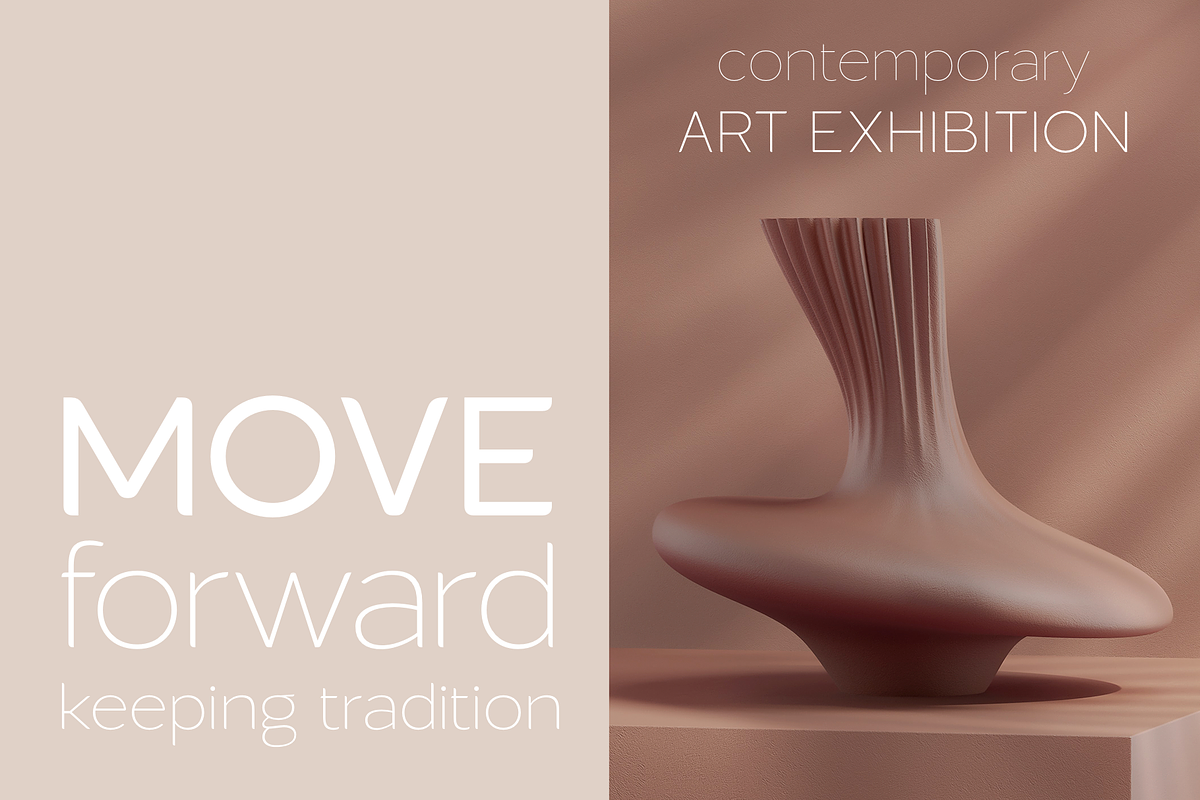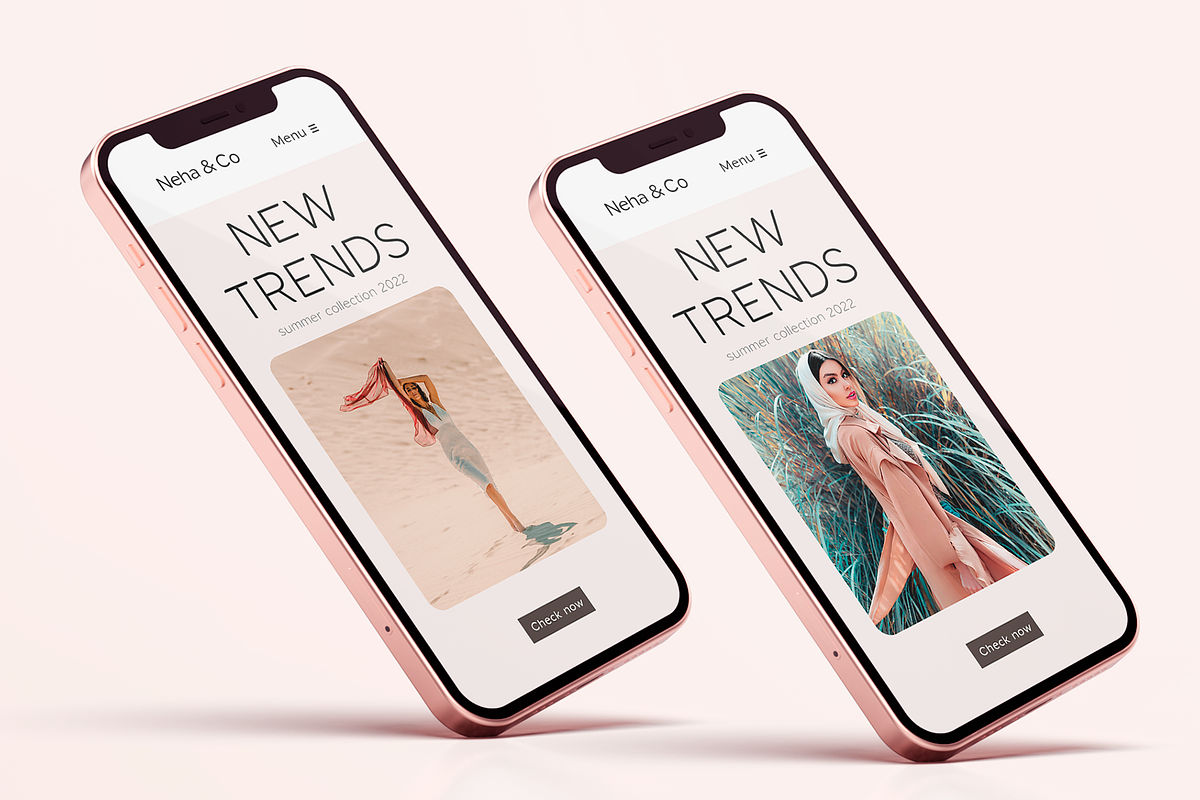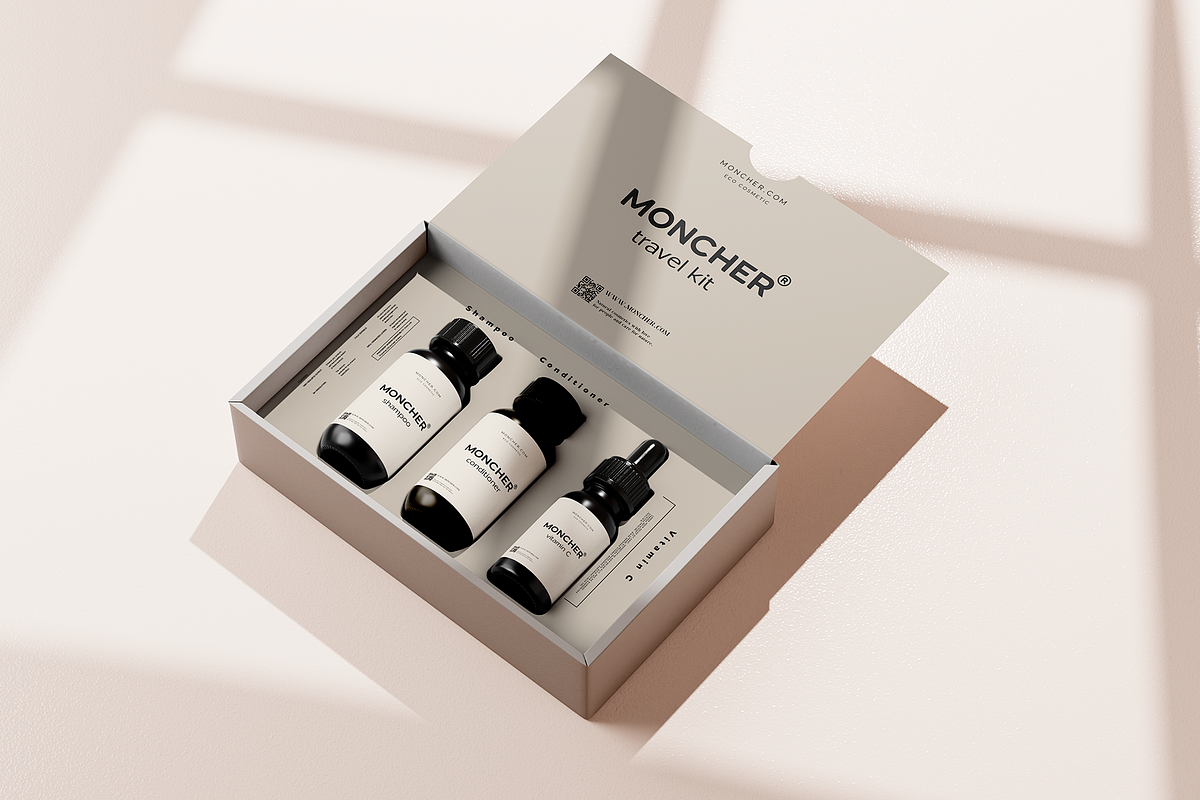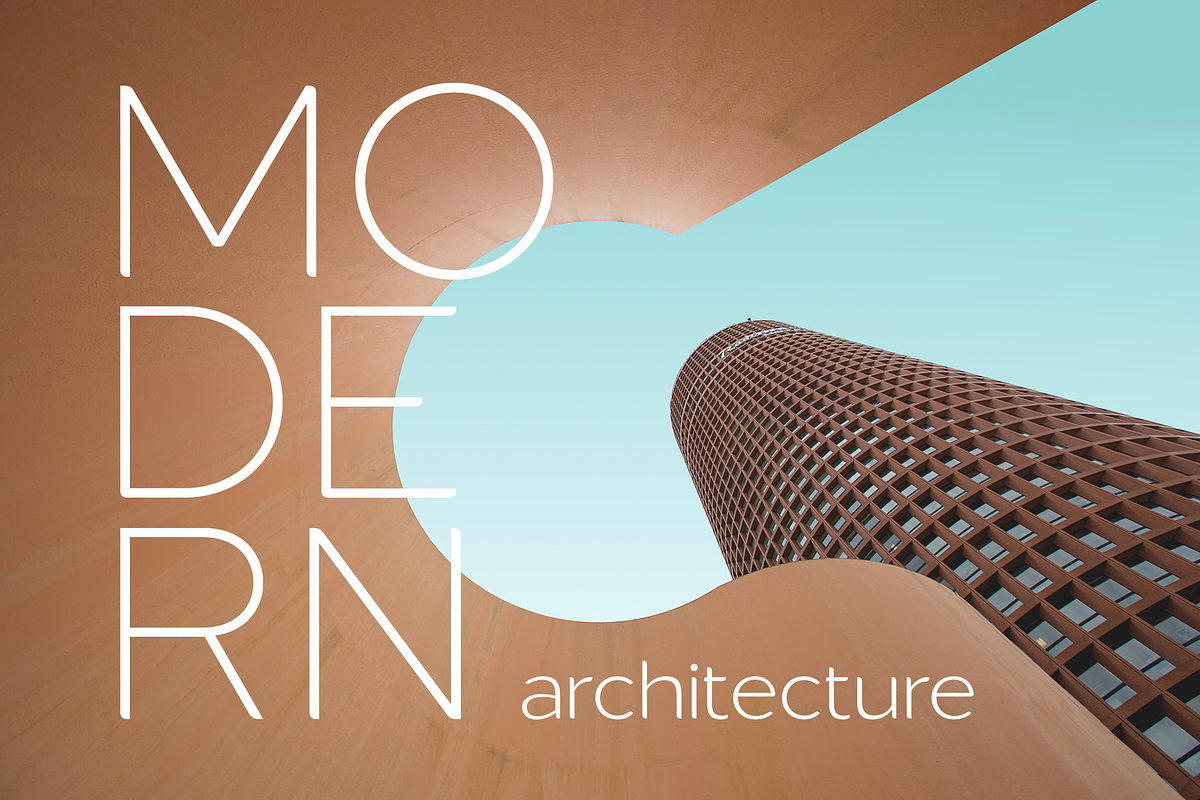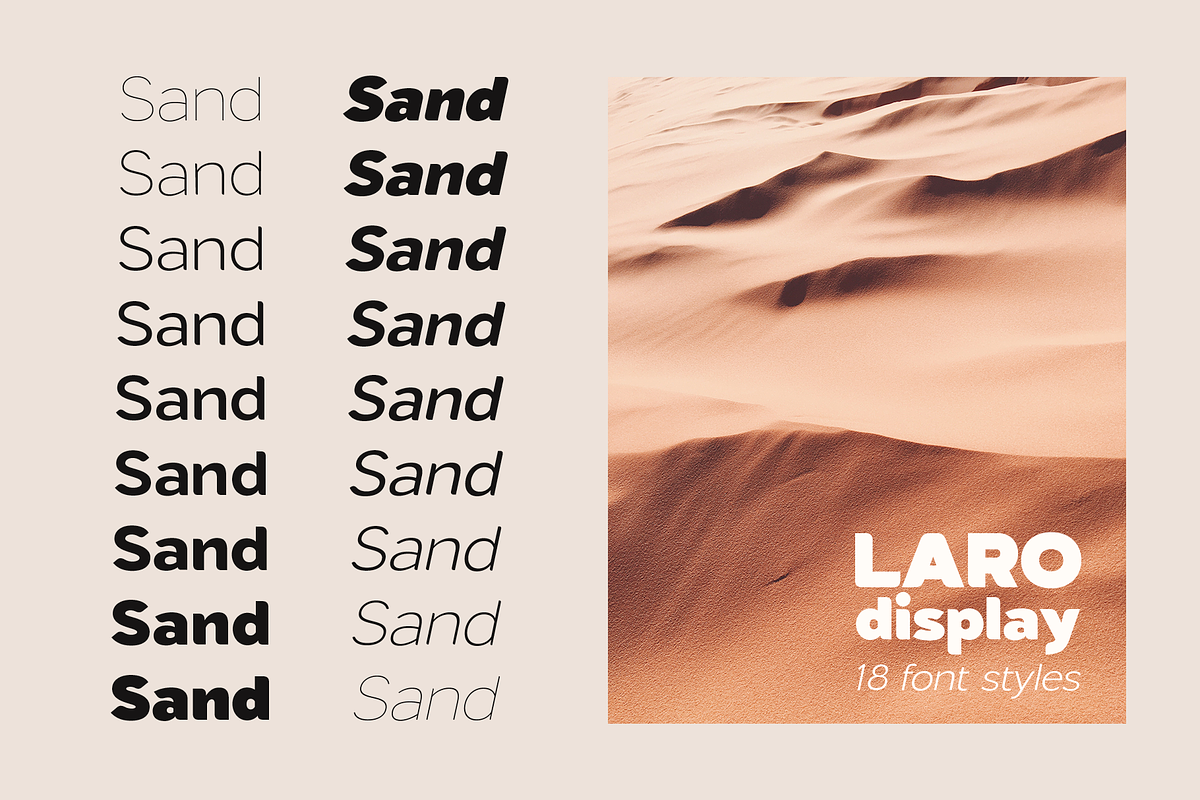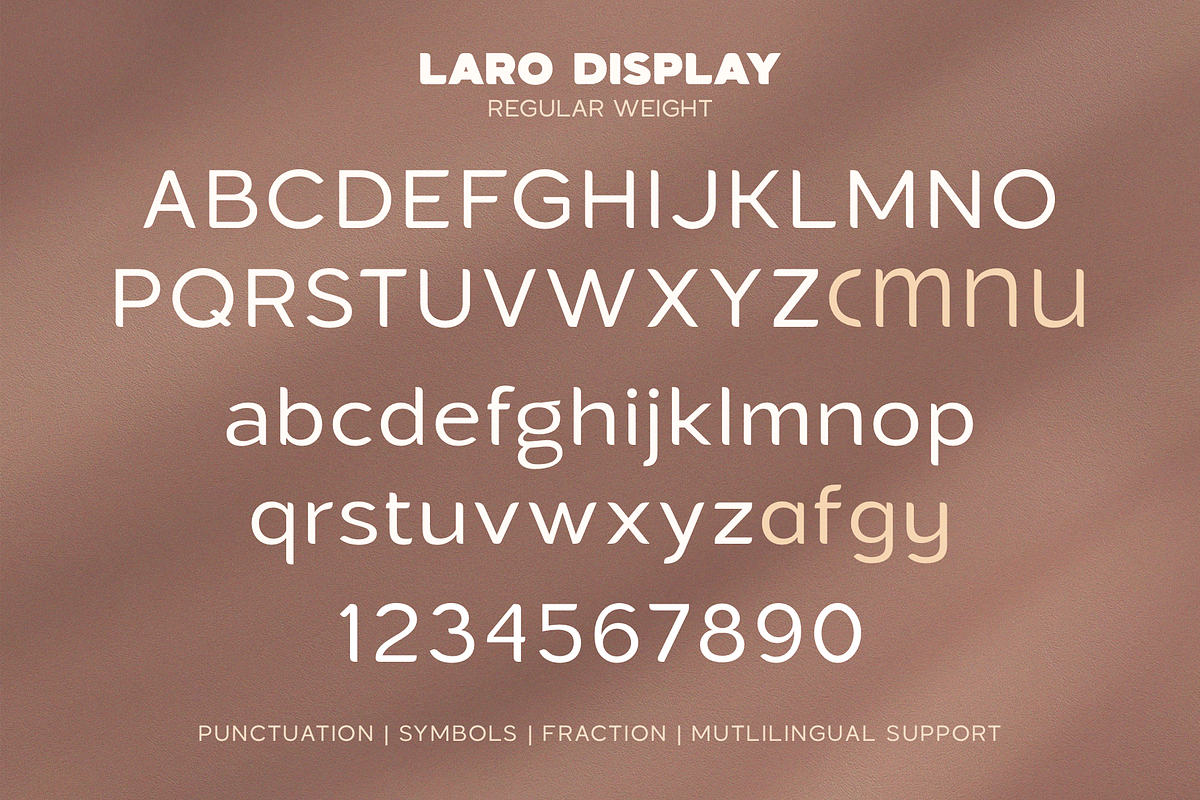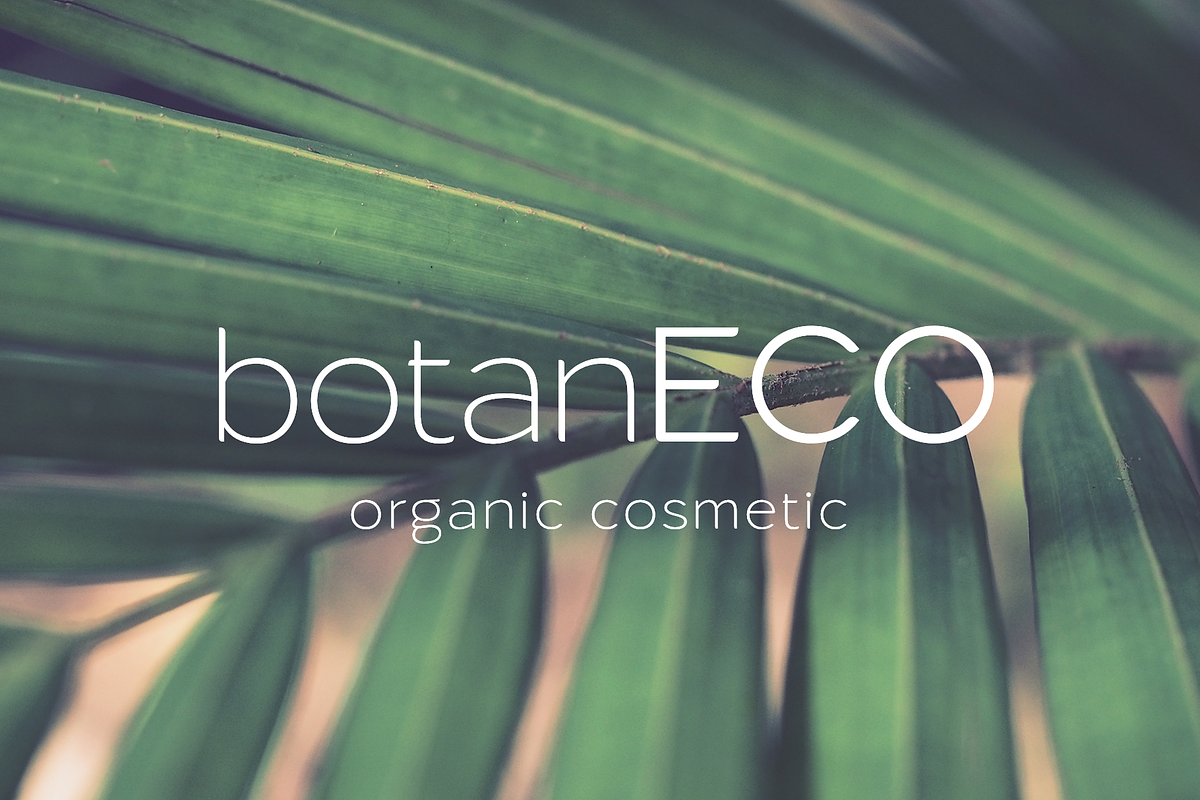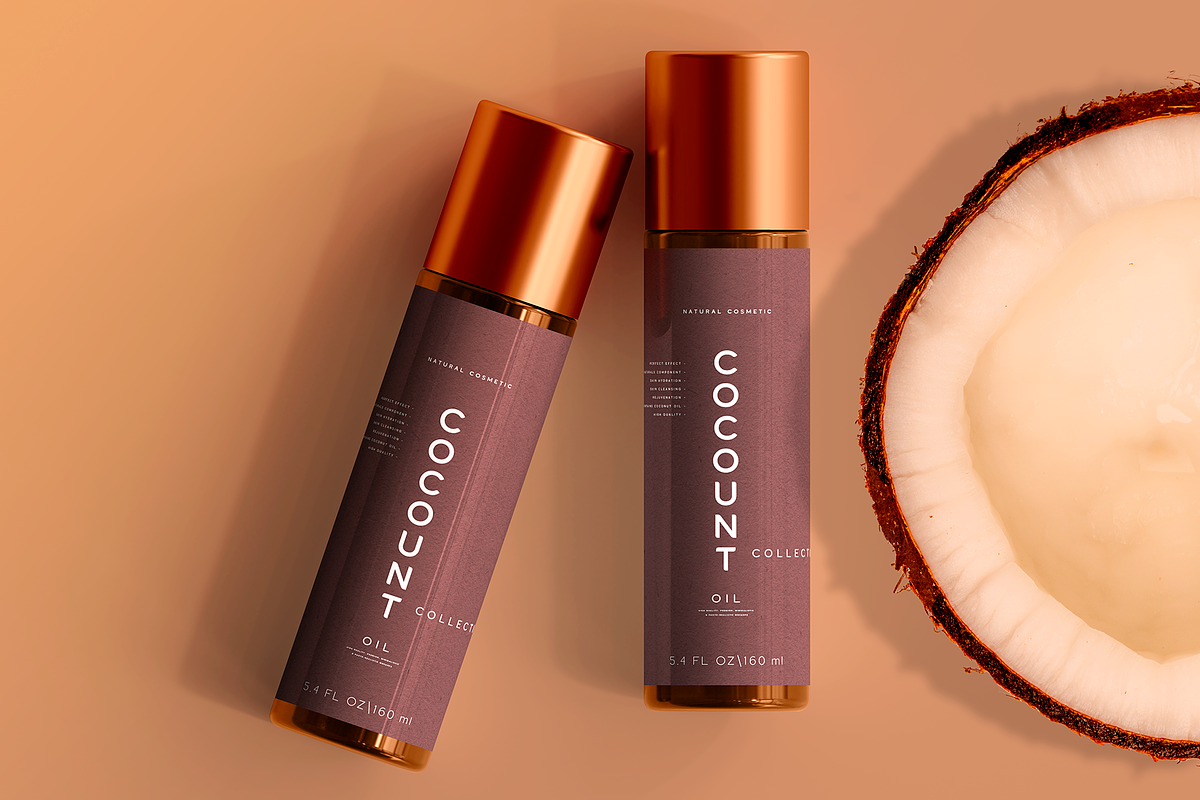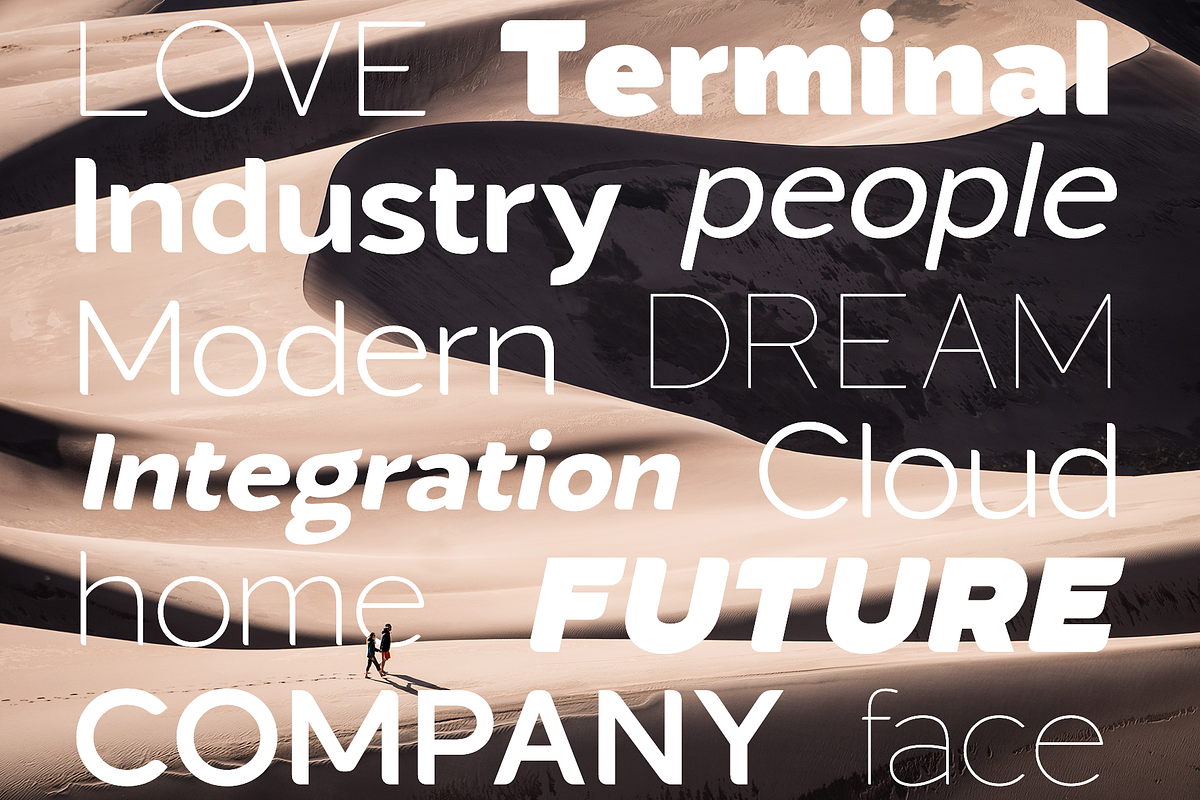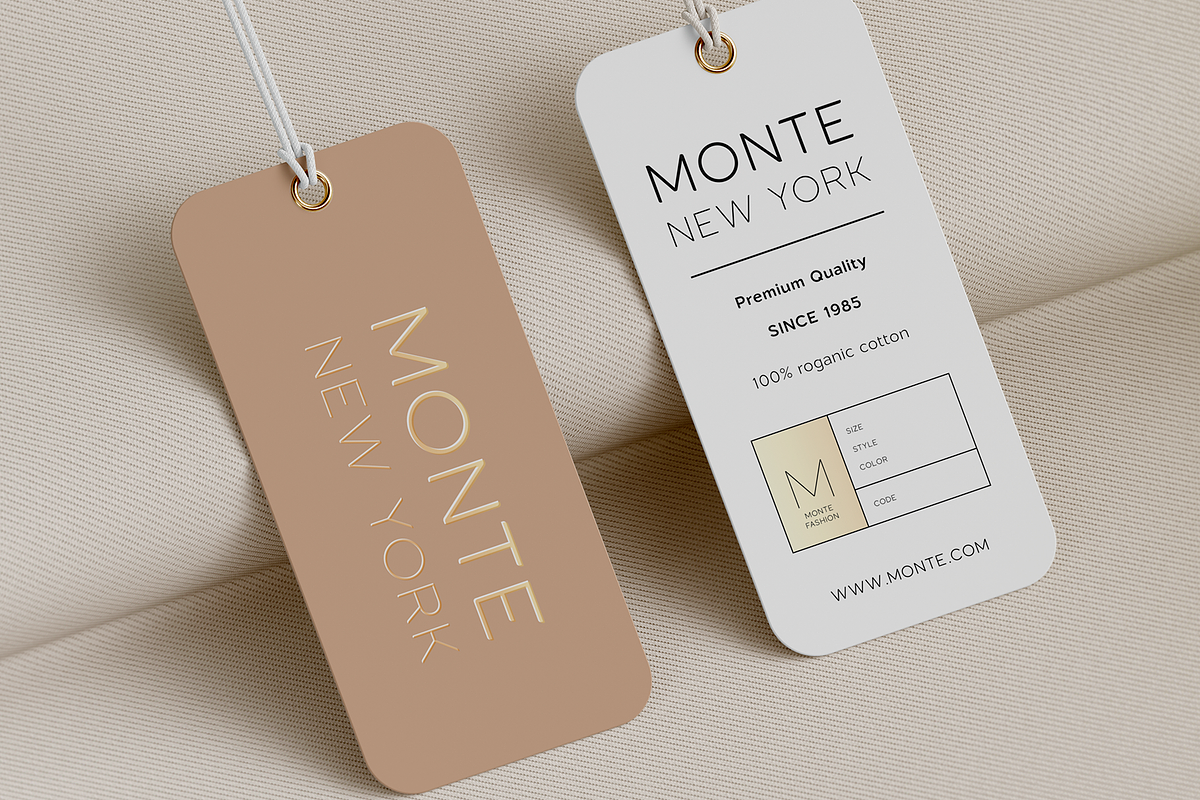
Laro Display Font Family
Laro Display this is a continuation of the Laro font family in the classic style, which you can see here:
Laro Display this is a modern sans-serif font that includes nine weights from thin to black and nine weights in Italic style.
This multi-purpose font captures a huge range for the design and creation of your project. Laro will perfectly cope with a variety of tasks and he will always look stylish and modern. With it, you can create logos, labels, use in advertising, packaging, branding, book covers and magazines, cosmetics, banners, posters, headings, descriptions and much more. This font is easy to use has OpenType features.
Following international symbols support: ÀÁÂÃÄÅĄÇĆÈÉÊËĘÌÍÎÏÐÑŃŁÒÓÔÕÖØÙÚÛÜŚŠŸÝŹŻŽßàáâãäåçèéêëìíîïðñòóôõöøùúûüýÿąćęłńśšźżž
- Full alphabet with Uppercase and Lowercase A-z
- Numbers, fractions
- Punctuation and symbols
- Alternates for Uppercase "C, M, N, U"
- Alternates for Lowercase "a, f, g, y"